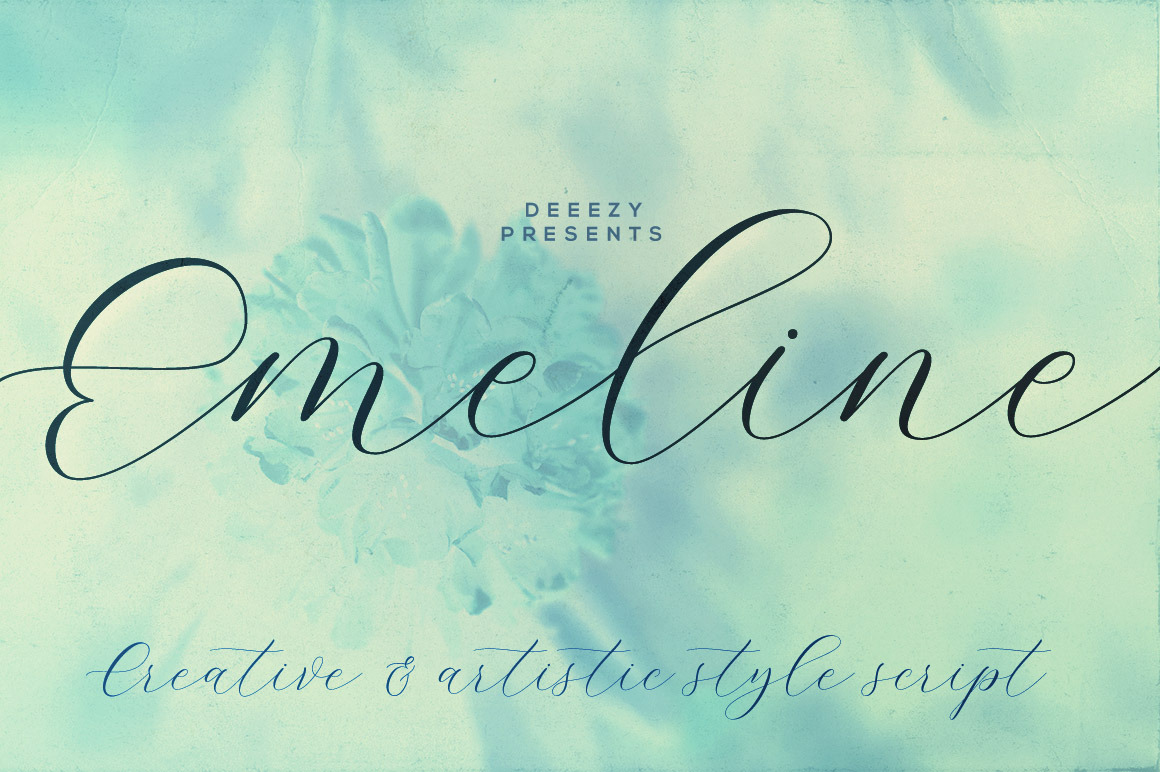
Emeline Script Font
Thin line and handwritten or creative style script font for your new projects. With multi language support and lot of stylistic alternates. Enjoy ;)